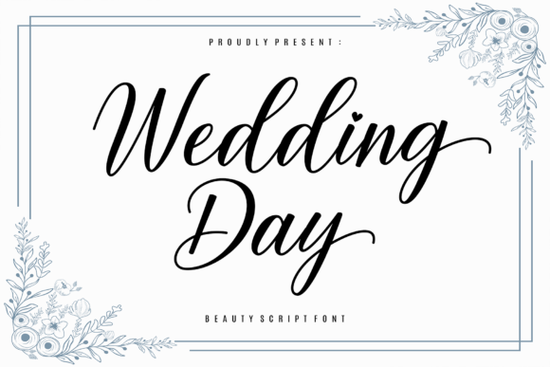
If you're designing wedding stationery invitations, vow books, signage, or even custom keepsakes the Wedding Day Font is a thoughtful, practical choice. It’s not overly ornate, but it carries quiet confidence: soft curves, balanced spacing, and subtle swashes that feel intentional, not distracting. You’ll notice right away how legible it stays at small sizes (like on RSVP cards), while still looking distinctive at larger scales (think ceremony programs or acrylic table numbers). It’s designed for real use not just display and that shows in the care taken with letterfit and alternate characters.
What makes Wedding Day Font work so well for wedding projects?
First, it avoids common pitfalls of script fonts: no awkward joins, no letters that visually “fight” each other, and no excessive flourishes that break readability. The lowercase “g,” “y,” and “f” have gentle descenders that flow without tangling. Uppercase letters have graceful entry and exit strokes just enough movement to feel personal, but not so much that they slow down production. And because it’s PUA encoded, you get full access to alternates and swashes straight from your font menu (no need for complex OpenType panels unless you want them).
This matters most when you’re juggling tight deadlines say, finalizing digital proofs for a client or prepping files for a local print shop. You can swap in a swash “t” or a connected “&” in seconds, not minutes. That kind of efficiency adds up, especially if you’re managing multiple clients or running a small print-on-demand shop focused on wedding niches.
Where does it fit alongside other popular script fonts?
It sits comfortably between more formal calligraphic styles and relaxed, hand-drawn scripts. Unlike the dramatic contrast of Christmas Lights Font, which leans festive and energetic, Wedding Day prioritizes calm sincerity. It’s also softer than Black Sample Font, which has stronger contrast and sharper terminals better for bold branding than delicate love notes.
You’ll find it shares warmth with The Wedding Signature Font, though Wedding Day offers more built-in variety: extra ligatures, optional beginning and ending swashes, and stylistic alternates for letters like “a,” “e,” and “s.” That gives you flexibility without needing to layer multiple fonts handy when keeping file sizes lean for digital delivery or web previews.
How do crafters and small businesses actually use it?
Here’s what real users tell us works well:
- Invitation suites: Pair it with a clean sans-serif (like Montserrat or Lato) for body text headings and names in Wedding Day, details in the secondary font.
- Print-on-demand products: Works reliably on mugs, tote bags, and framed art especially when used at medium-to-large sizes with solid color fills (avoid ultra-thin outlines that may not cut cleanly on vinyl or embroidery).
- Digital downloads: Customers consistently rate invitations using this font as “feeling personal but polished” a sweet spot for Etsy sellers who want to stand out without over-designing.
- Hand-lettered hybrids: Some designers use it as a base, then trace and refine key words (like “forever” or “always”) by hand for a mixed-media look.
It’s also been used thoughtfully in non-wedding contexts like heartfelt birthday cards for grandparents, anniversary journal covers, or boutique café menus aiming for quiet charm. That versatility means you’re not locking yourself into one seasonal niche.
Things to keep in mind before you start designing
Like any script font, Wedding Day benefits from testing at actual output sizes. Try printing a test line at 12 pt, 24 pt, and 48 pt on your usual paper stock some swashes soften or sharpen depending on ink absorption. Also, avoid stretching or skewing the font in design software; it was drawn to sit naturally on the baseline, and distortion breaks its rhythm.